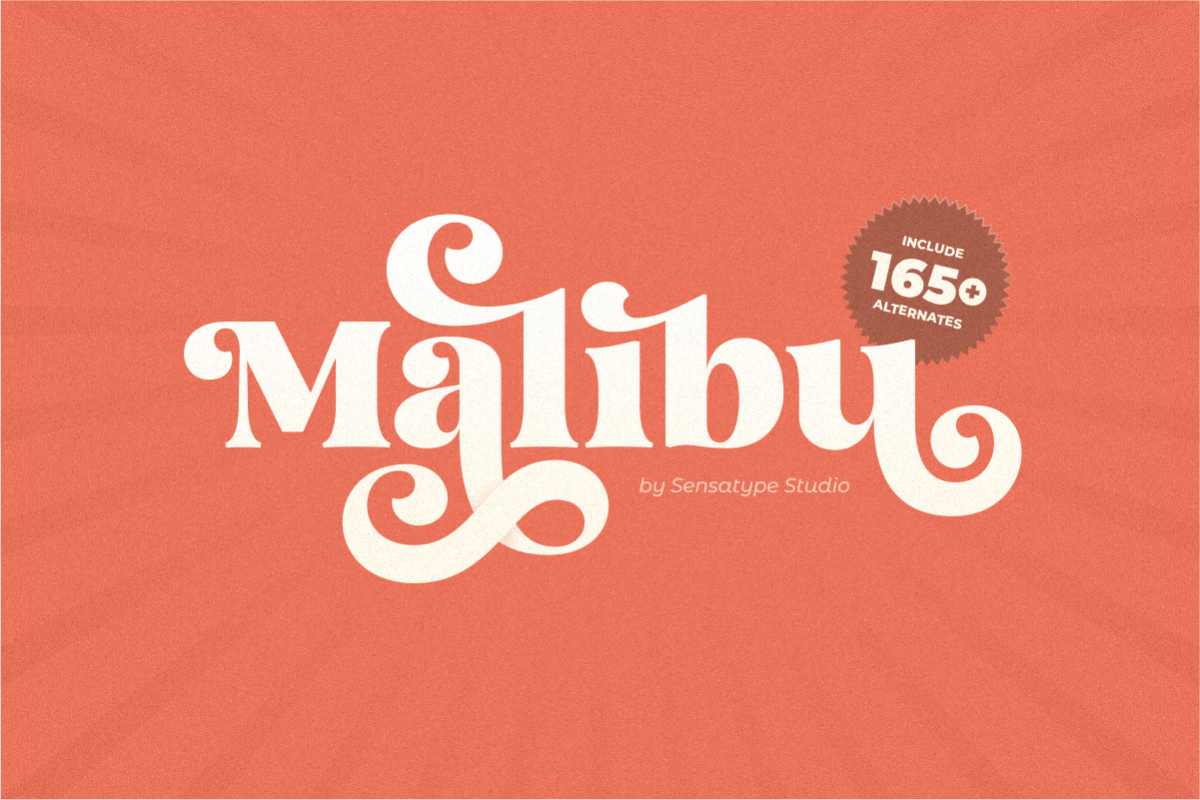
Malibu Fancy Vintage Font
Malibu font is a well-balanced contemporary font with a fancy, playful, unique, and versatile vintage serif family with 165+ alternates that you can combine to get curves and beautiful shapes easily just in seconds. It is a display font with moderate contrast that perfect for branding projects, logo, wedding designs, social media posts, advertisements, product packaging, product designs, label, photography, watermark, invitation, stationery, and any projects, it makes with a high level of legibility.
Ligature & Huge Stylistic alternate